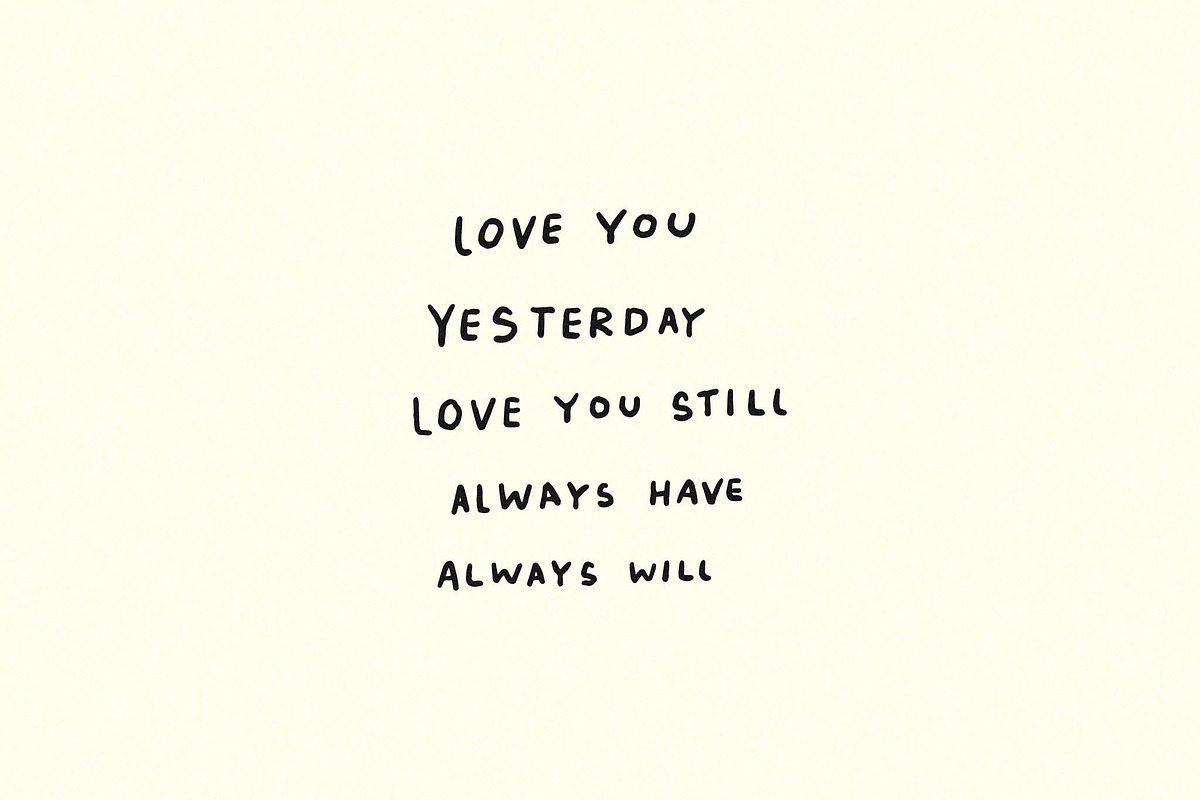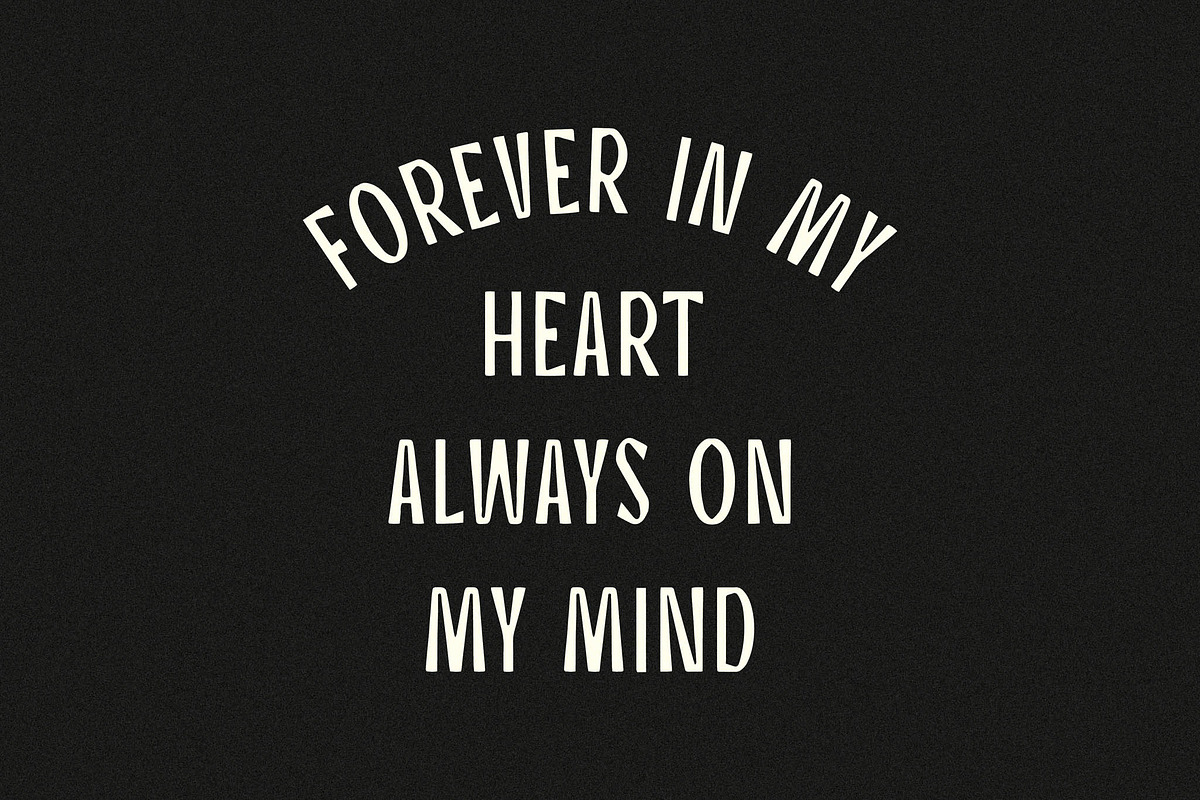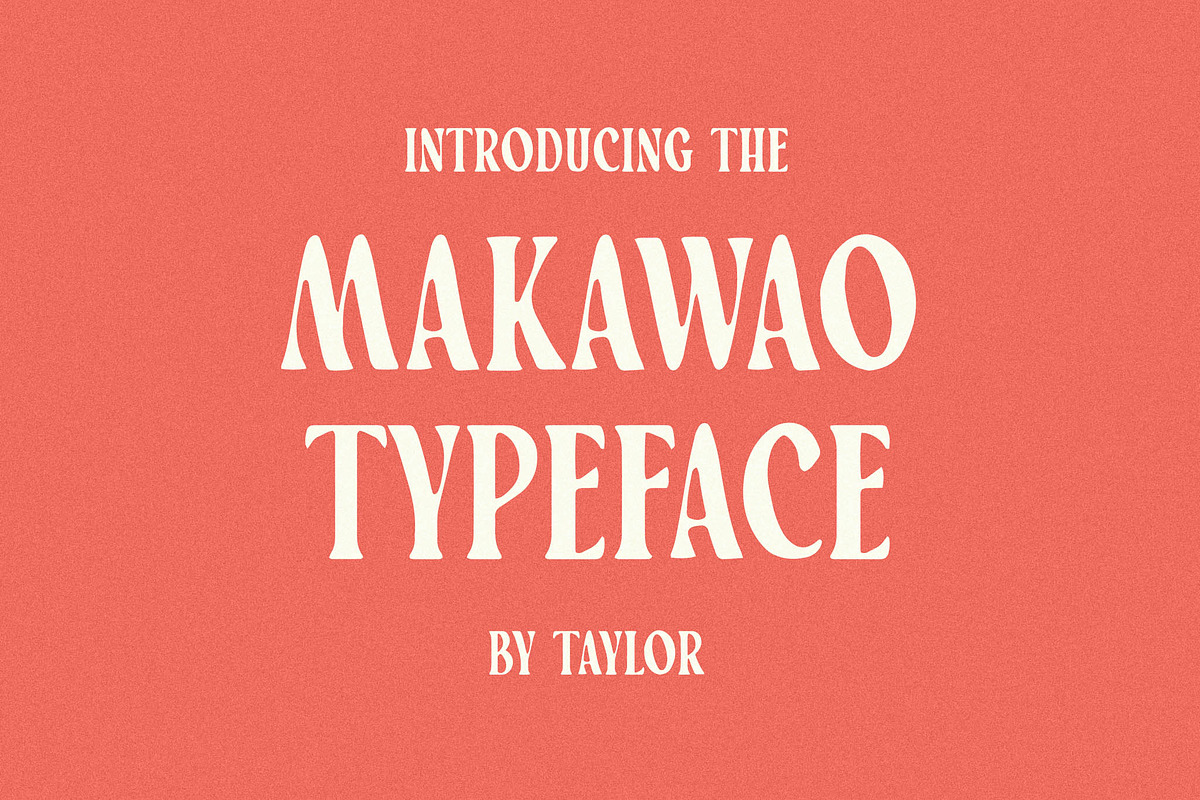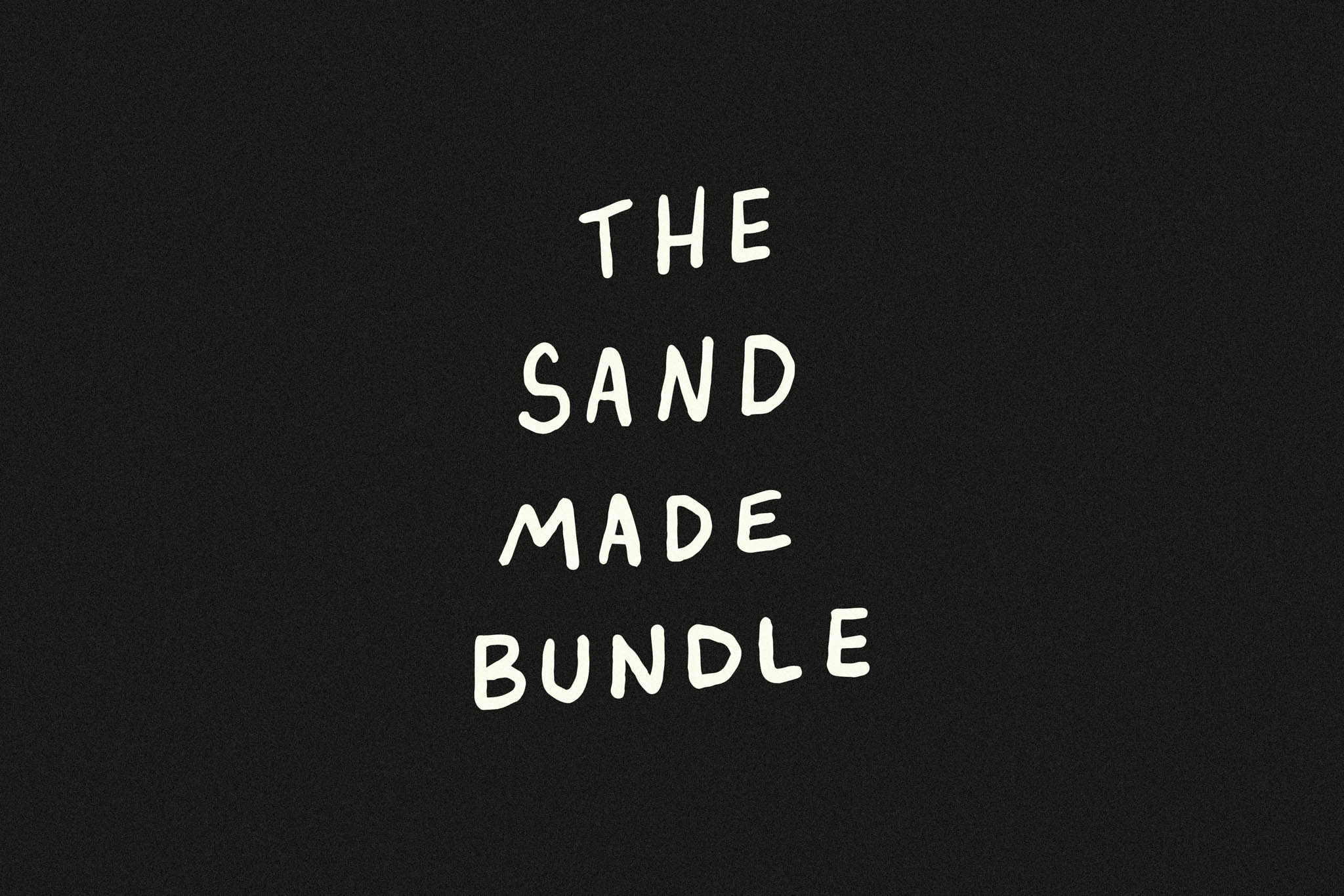
The Sand Made Font Bundle
The Sand Made Bundle is a slightly tropical trio of handdrawn typefaces.
Each font contains all uppercase, numbers 0-9, and basic punctuation. Kula also includes lettercase and a variation of each letter to provide another layer of creative control.
Includes Kula, Napili and Makawao. (Kula and Makawao are currently unavailable outside this bundle)